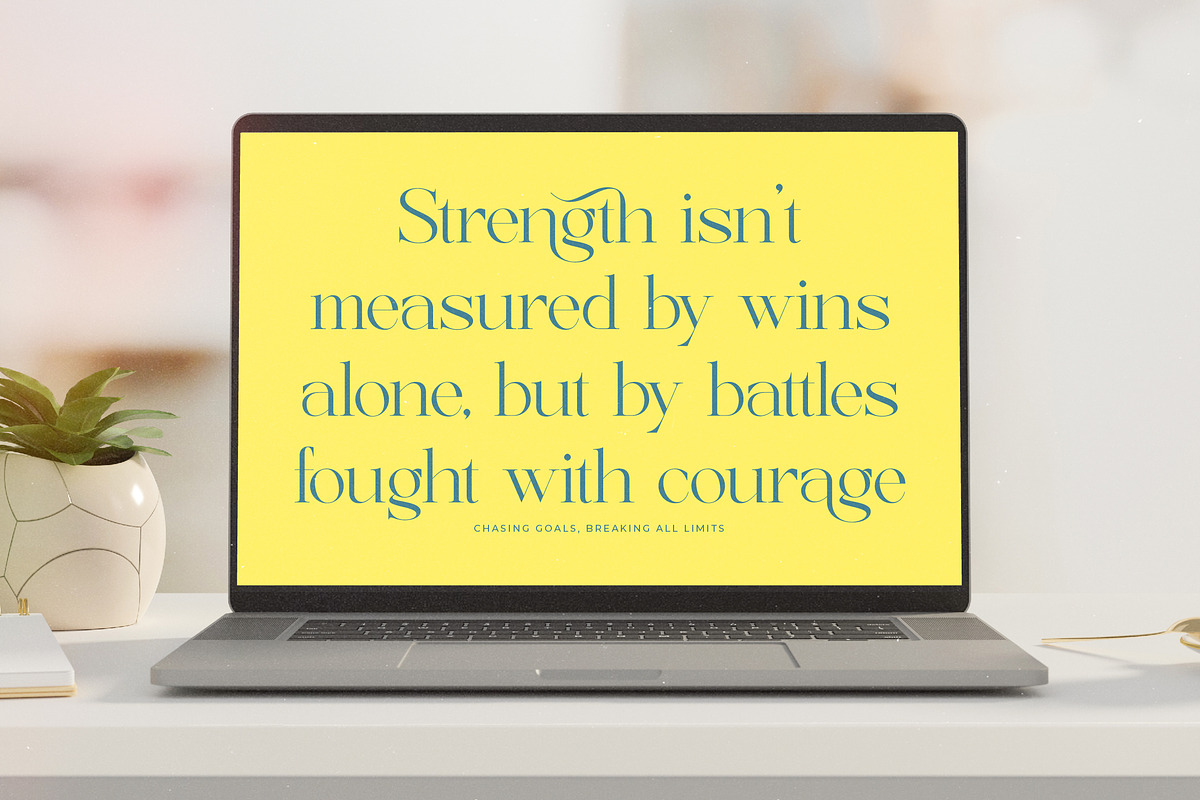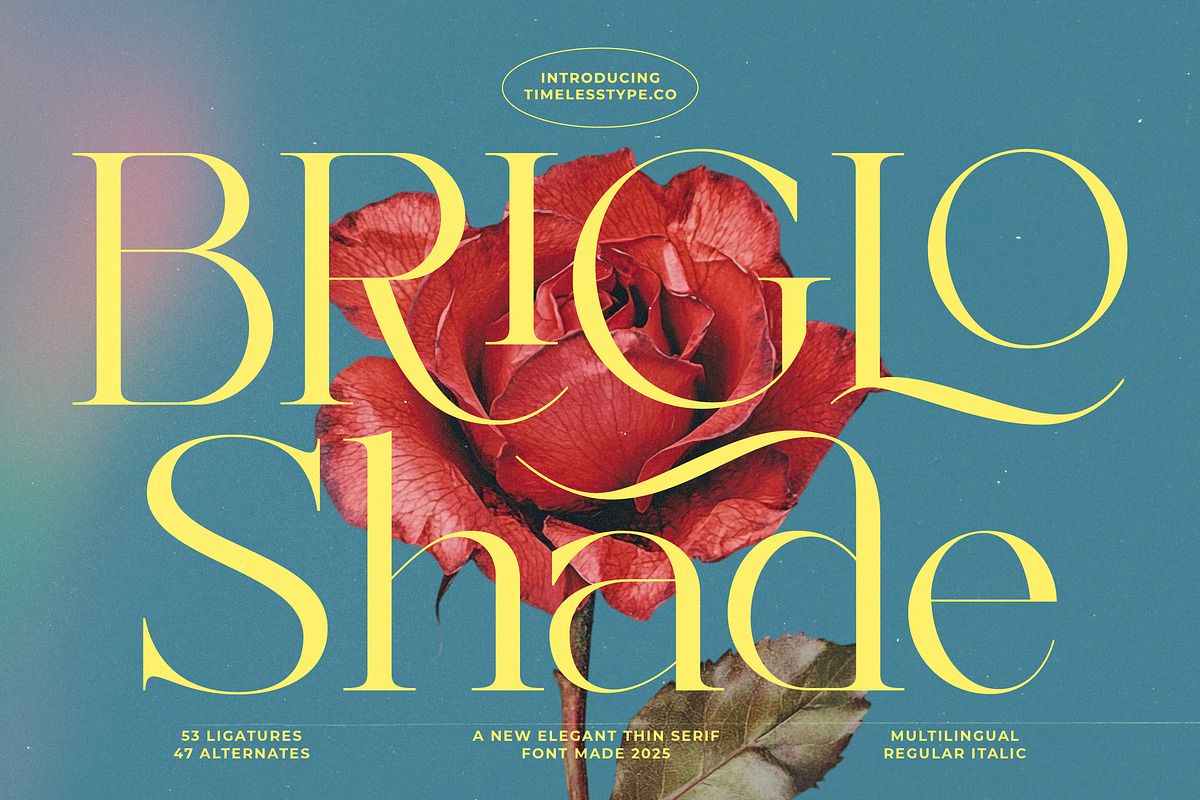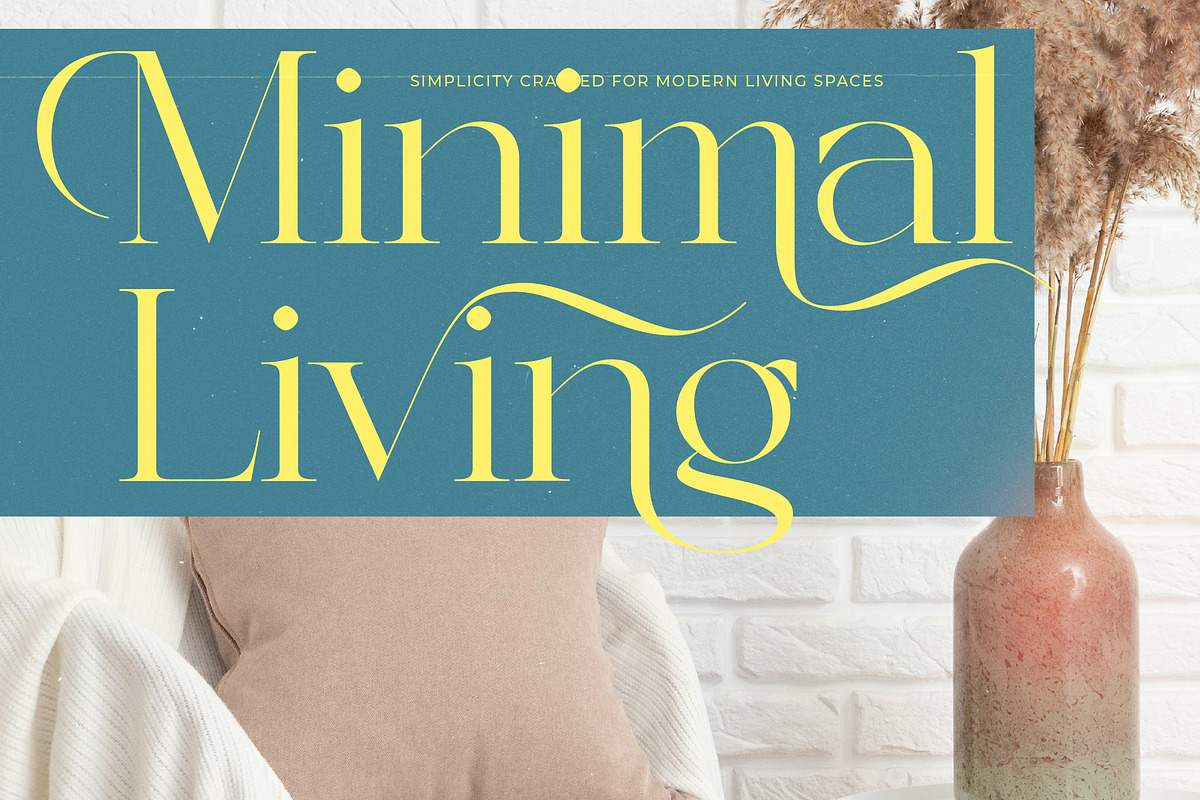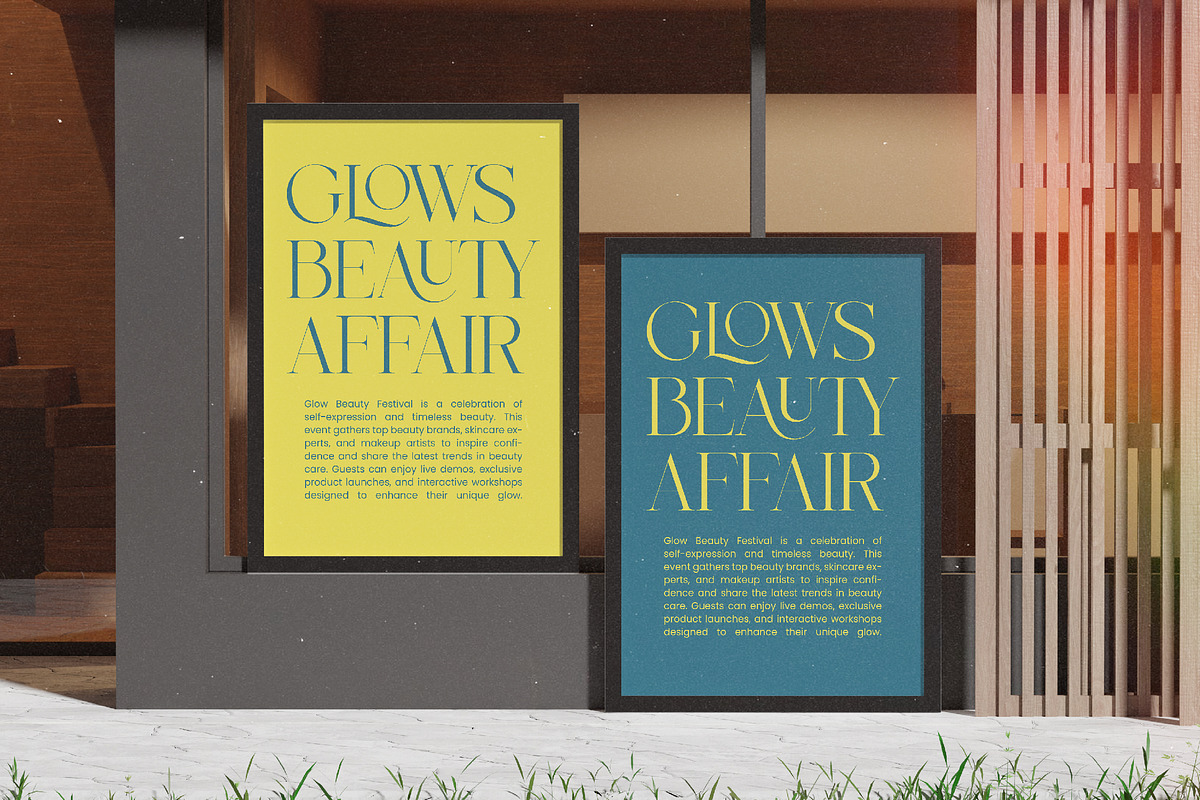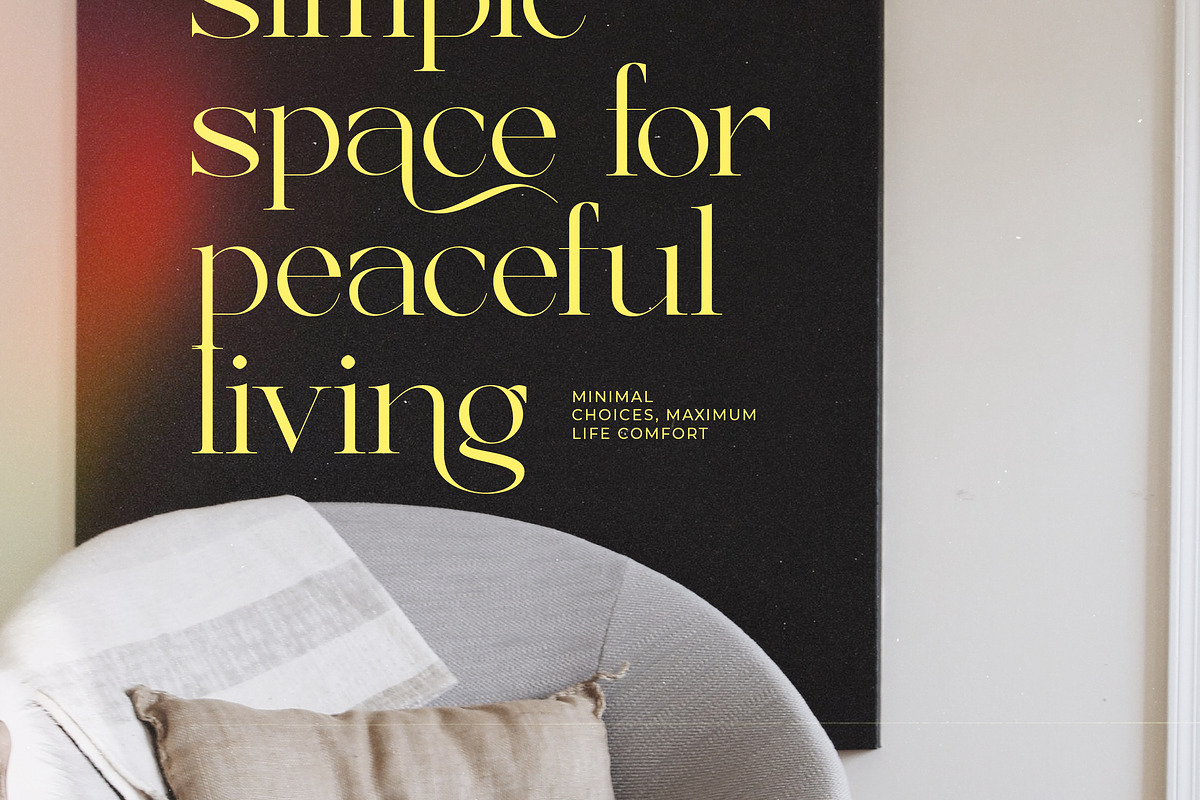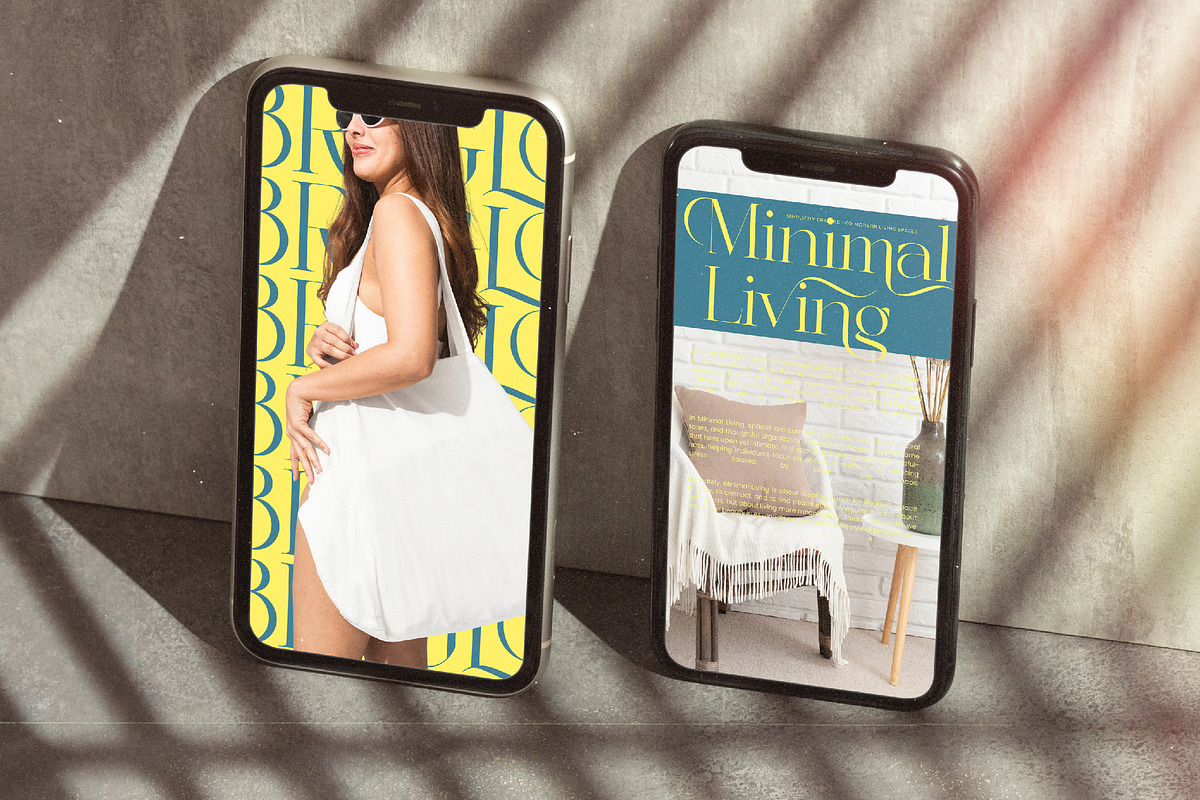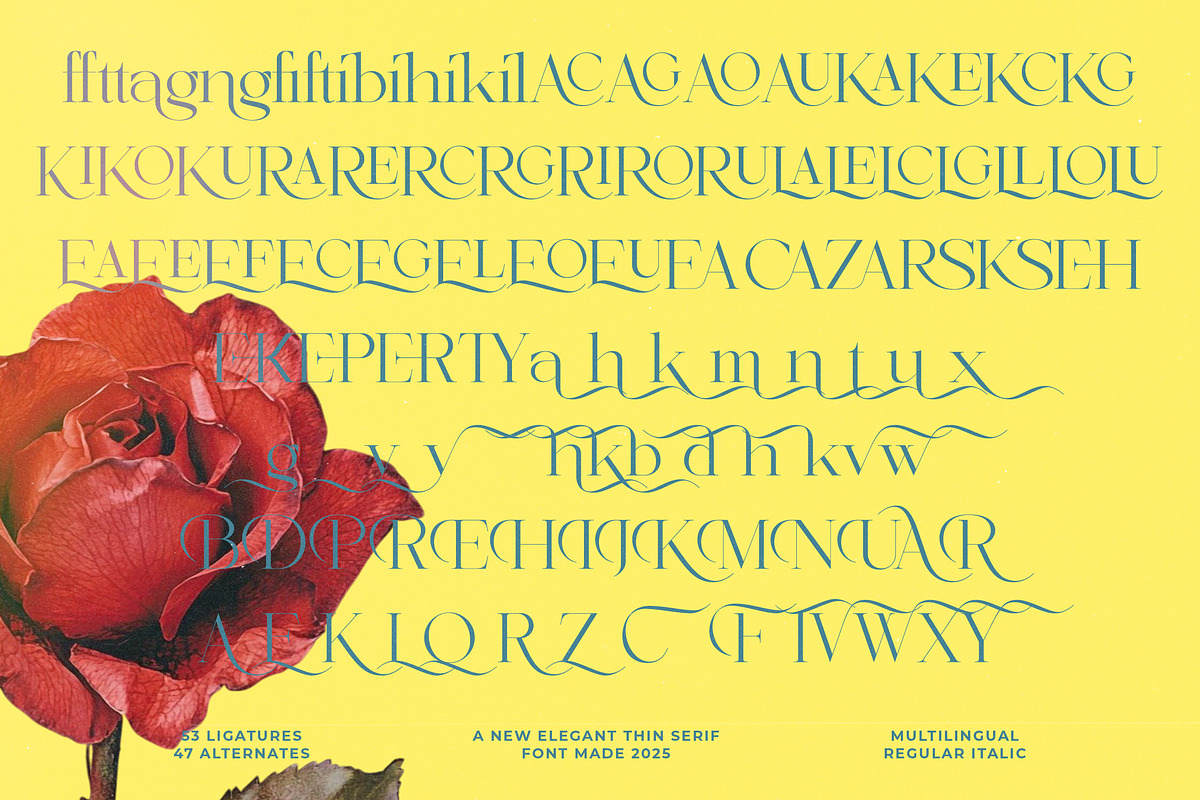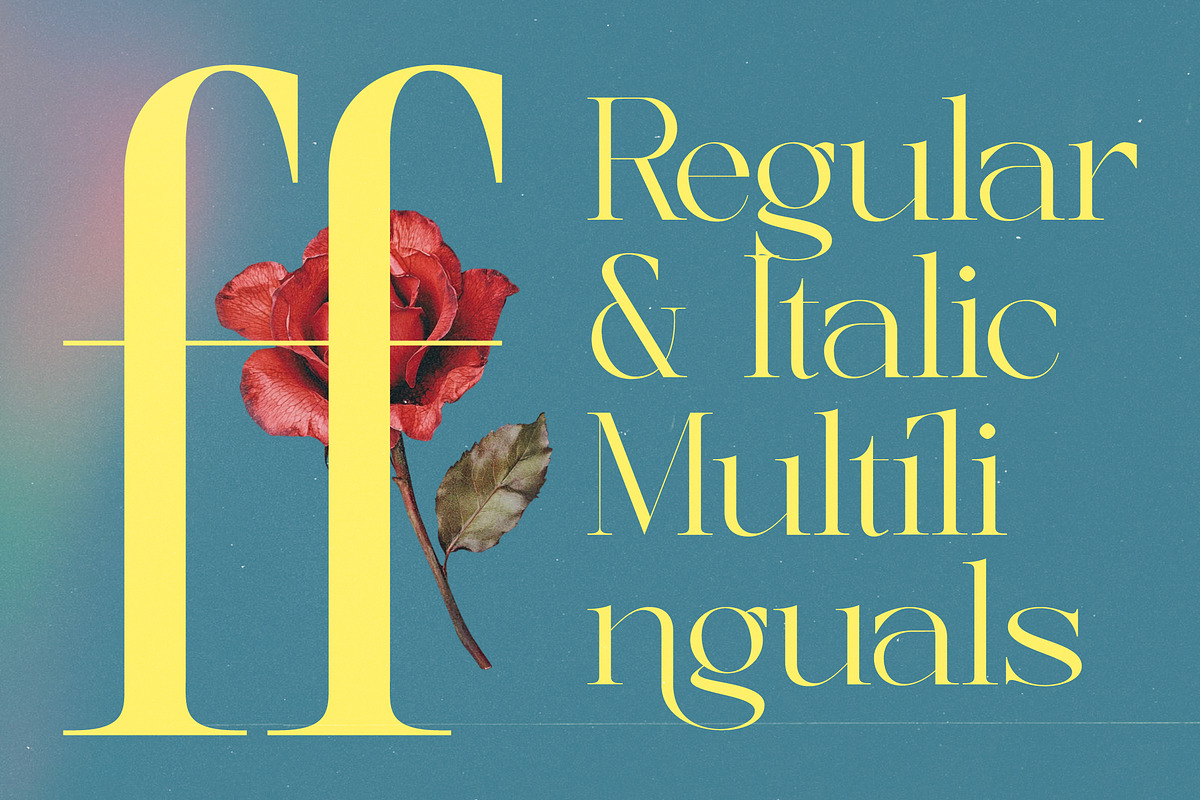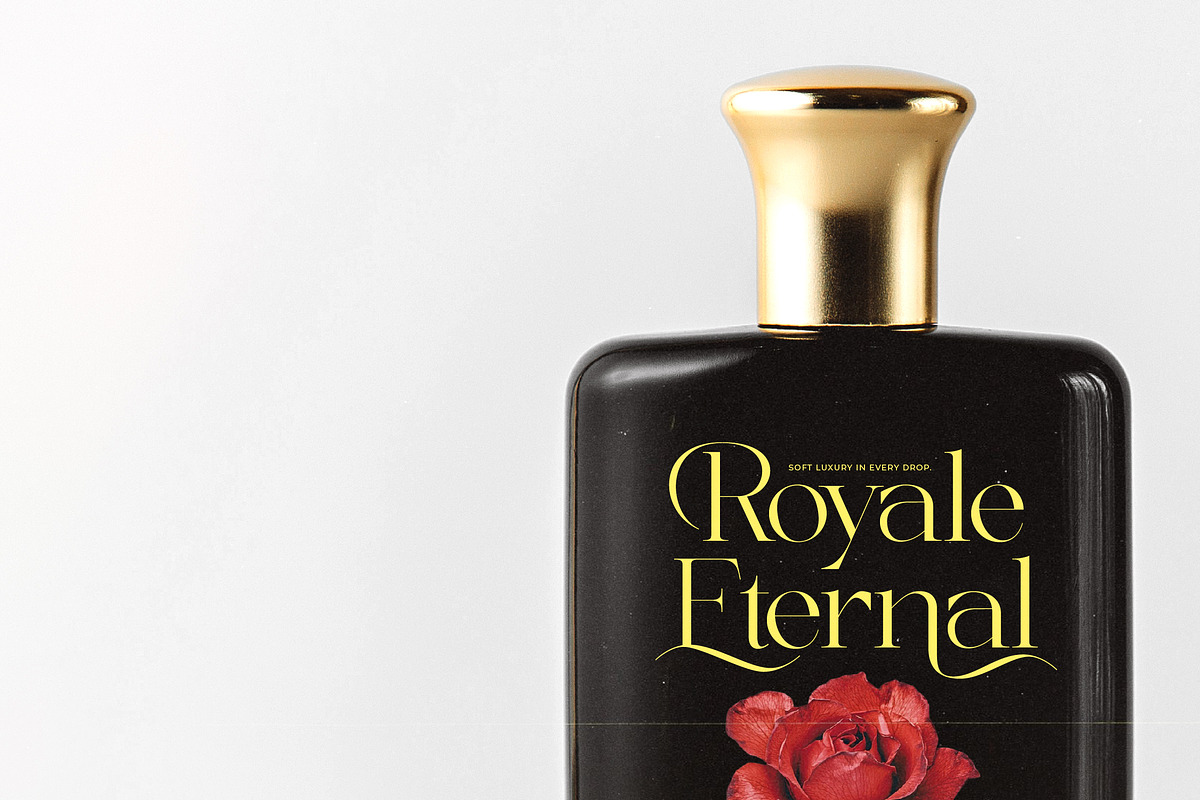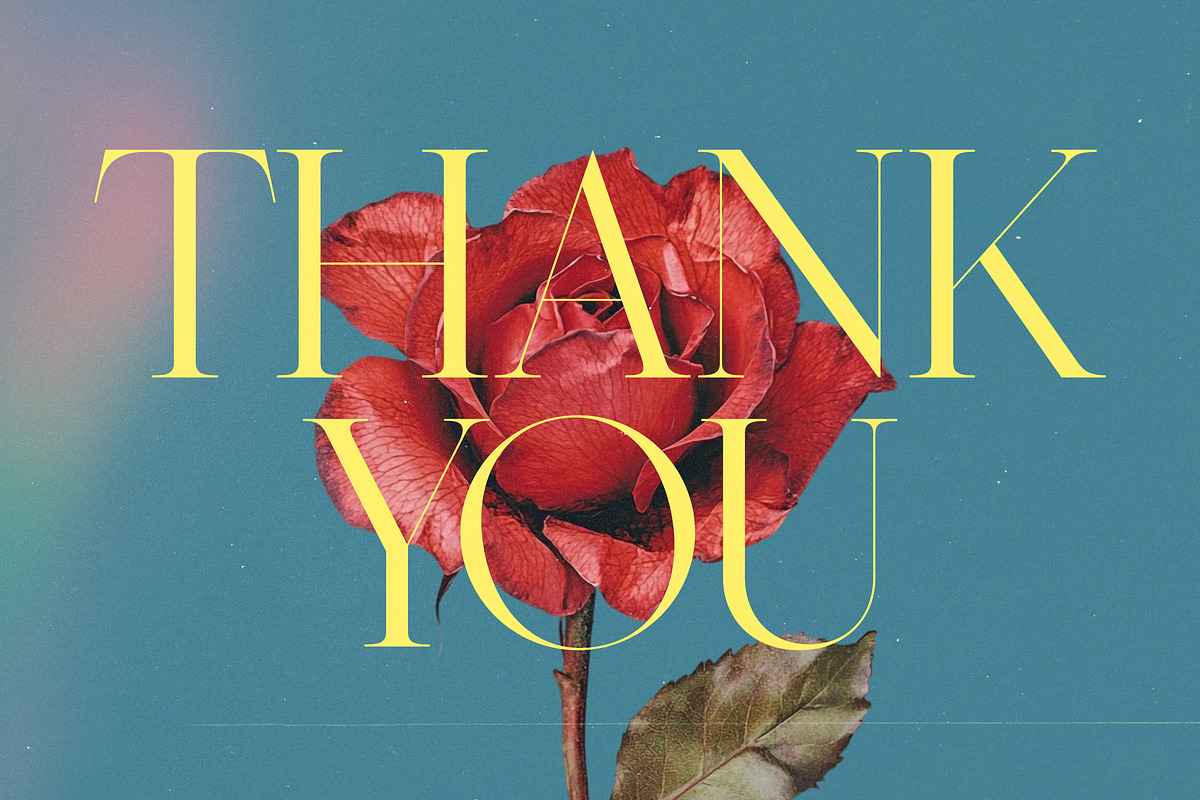
Briglo Shade Elegant Thin Serif
Elevate your creative vision to new heights of sophistication with Briglo Shade, a typeface that captures the essence of timeless grace and modern allure. This delicate thin serif is designed to whisper stories of elegance across every canvas it touches.
Inspired by the delicate petals of a blooming rose and the sharp precision of high-fashion layouts, this font evokes a sense of romantic nostalgia blended with contemporary sharpness. It carries the weight of a legacy while feeling perfectly at home in the digital age.
With its stunning modern serif display and refined luxury typography, this high-contrast serif commands attention through subtlety rather than noise. It is the quintessential editorial font for designers seeking a powerful branding impact that resonates with an upscale audience.
Perfectly aligned with the current modern serif trend, this typeface meets the demand for editorial display fonts that offer both legibility and artistic flair. It stands at the forefront of character-driven typography, providing a unique voice for brands that refuse to blend in.
From high-concept logo design and comprehensive visual branding to the pages of a luxury editorial magazine, this font excels in diverse environments. It is the ideal choice for sophisticated packaging, ethereal wedding stationery, and the fast-paced world of high fashion.
This comprehensive type system includes over 53 unique ligatures and 47 creative alternates that allow for custom-tailored layouts. It features expressive swashes and full multilingual support, including a wide range of international characters to serve a global design market.
- Ligature 53 Alternate 47